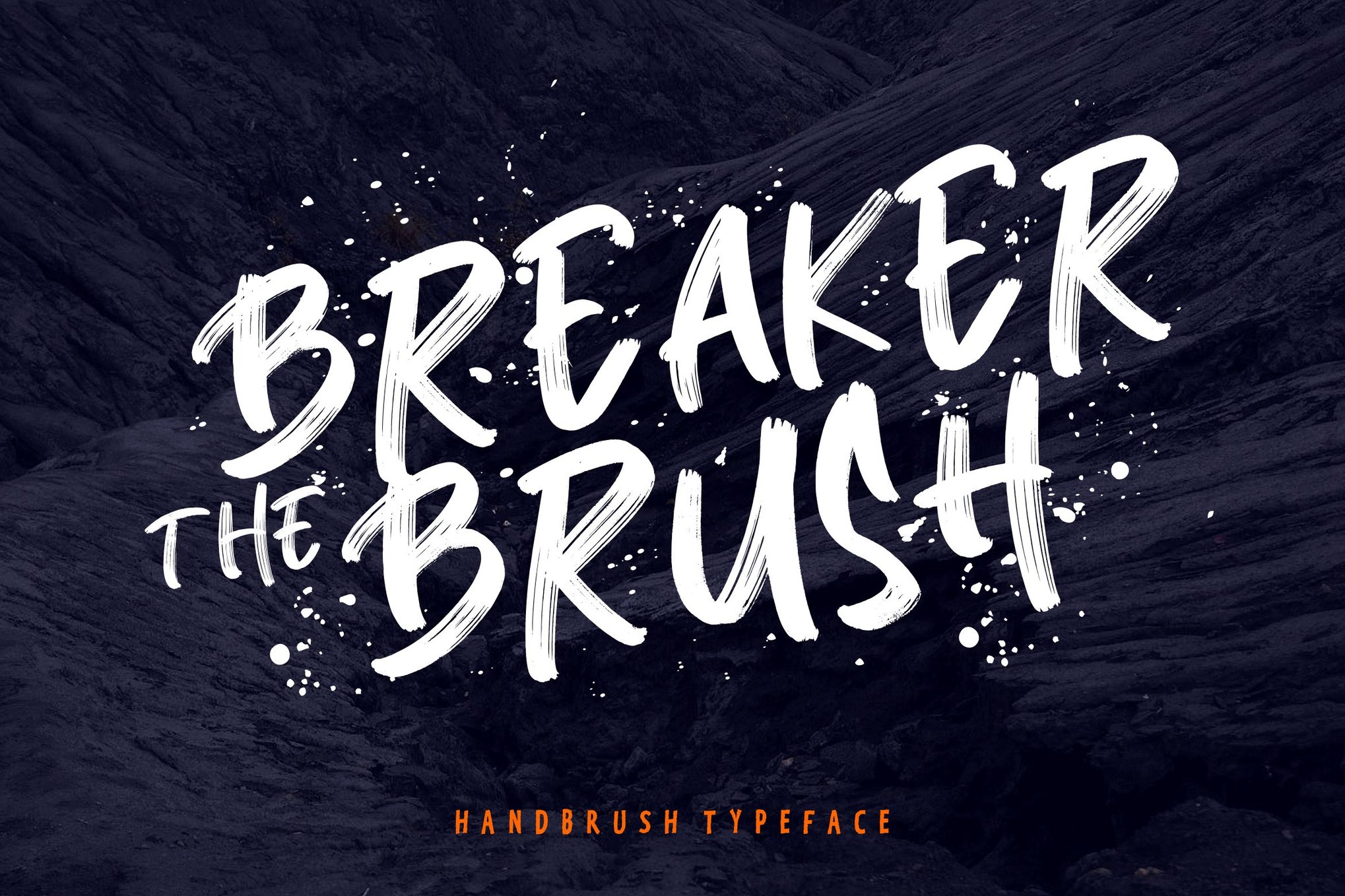
Breaker The Brush Advertisement Font
The Breaker The Brush Advertisement Font is a powerful and dynamic typeface that captures the raw, energetic feel of a hand-painted brush. Its bold strokes and authentic textures make it a perfect choice for projects that demand a high-impact, personal touch. This font is excellent for rebellious branding, music album covers, protest posters, and any creative work that needs to make a loud, unforgettable statement. The Breaker The Brush Advertisement Font's unique character makes it a favorite among designers who want to create a sense of genuine artistry and raw emotion.
What makes the Breaker The Brush Advertisement Font so exciting is its raw, uncompromising energy. The intentional imperfections and textured details in each character give it a genuine, human touch that sets it apart from more traditional, geometric fonts. This isn't just a font; it's a piece of art that tells a story, making your designs feel rich with character and meaning. Its powerful presence ensures that your message is not just seen, but felt, making it an invaluable tool for designers who want to create bold and memorable visual experiences.
The Breaker The Brush Advertisement font family is designed for maximum impact, providing a complete set of uppercase and lowercase letters, numbers, and punctuation. While it's primarily designed as a display font, its clean lines and clear structure maintain a surprising level of readability, even in complex layouts. This full-featured family gives you all the tools you need to create a cohesive and powerful design.